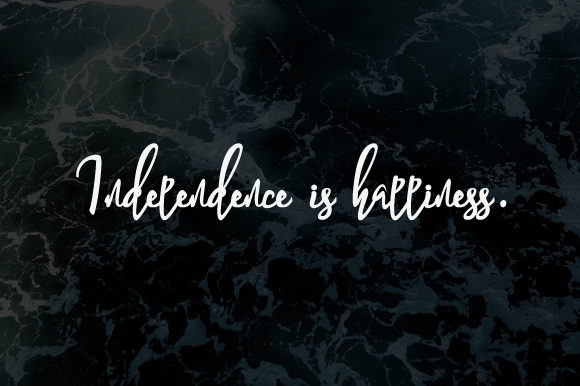
The Birth of a Timeless Typeface: Bandrose Family Font
Have you ever found yourself in a quiet café, sipping a warm cup of coffee, and staring at the beautiful handwriting on the menu board? The way the letters seem to dance across the page, inviting you to take a closer look. That’s exactly the feeling the designers behind the Bandrose Family Font aimed to capture.
With its unique blend of handwritten and carved elements, the Bandrose Family Font is more than just a typeface – it’s an experience. Designed to evoke a sense of warmth and comfort, this font is perfect for designers looking to add a touch of personality to their projects. Whether it’s a book cover, a logo, or a website, the Bandrose Family Font is sure to leave a lasting impression.
Bandrose Family Font Key Features
- Font Family: Bandrose is a typeface family consisting of 4 font styles: Regular, Italic, Bold, and Bold Italic.
- Character Count: The Bandrose font family includes a wide range of characters, including uppercase and lowercase letters, numerals, punctuation marks, and special characters, with a total of over 600 glyphs.
- Language Support: Supports multiple languages, including English, Spanish, French, German, Italian, Portuguese, and many others, making it suitable for global applications.
- Unique Characteristics: Bandrose features a distinctive blend of modern and vintage elements, with rounded edges, subtle flourishes, and a neutral color palette, making it perfect for a wide range of design applications, from branding and advertising to publishing and digital media.
Bandrose Family Font Review
Overall, I think the Bandrose Family Font is a solid addition to any design project. ✨ The font’s playful, handwritten feel makes it perfect for projects that need a touch of personality.
- ✨ The Bandrose Family Font’s unique style is sure to grab attention and set your project apart from the crowd.
- ✨ The font is highly customizable, making it easy to adjust to fit your design needs.
- ✨ The Bandrose Family Font is a great choice for projects that require a mix of formal and informal elements.
- ⚠️ The font may be too playful for more serious or corporate projects.
- ⚠️ The Bandrose Family Font can be difficult to read at very small sizes, so be sure to use it wisely.
- ⚠️ Some users may find the font’s irregularities to be distracting or unprofessional.
Overall, I’d recommend the Bandrose Family Font for projects that need a touch of whimsy and personality. With its unique style and high level of customization, it’s a great choice for designers looking to add some flair to their work.
Tip: Use the Bandrose Family Font for titles and headings to add a touch of elegance to your design.
Tip: Use the Bandrose Family Font for logos, typography-based designs, and editorial content.
Tip: Use the Bandrose Family Font for presentations, reports, and documents where a professional and elegant font is required.
The Bandrose Family Font is suitable for:
- Editorial content
- Typography-based designs
- Document design
Playfair Display is a luxurious and elegant serif font that is perfect for use in high-end designs, such as luxury branding, fashion, and fine art. It is a more traditional and ornate alternative to Bandrose Family Font, with intricate details and flourishes that add a touch of sophistication. Its classic feel makes it suitable for use in formal and professional settings.
Q: Are there any specific font pairing recommendations for the Bandrose Family Font?
For best results, pair the Bandrose Family Font with fonts that have a similar x-height and line spacing. Sans-serif fonts like Open Sans or Lato work well, while serif fonts like Merriweather or Georgia can add a touch of elegance. Experiment with different combinations to find the perfect match for your design.